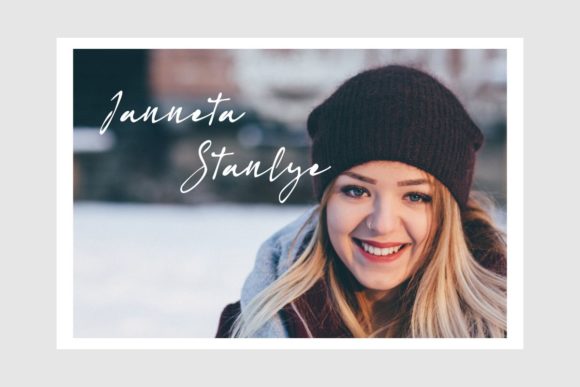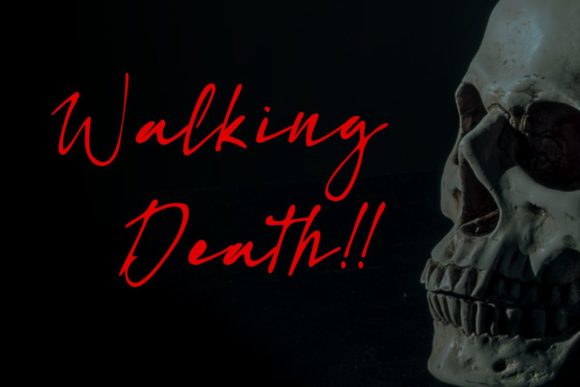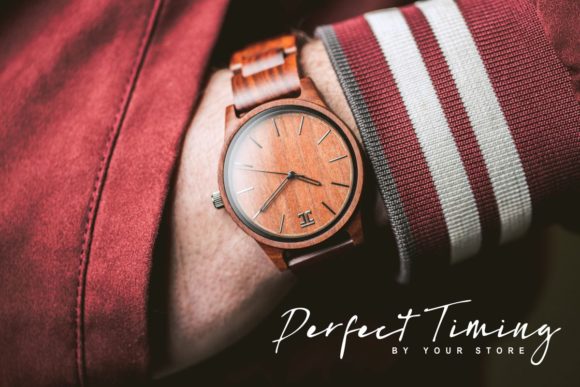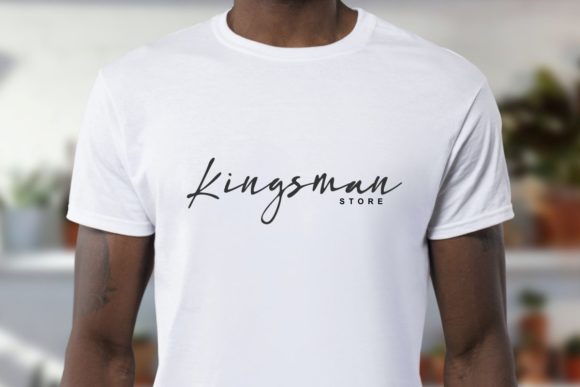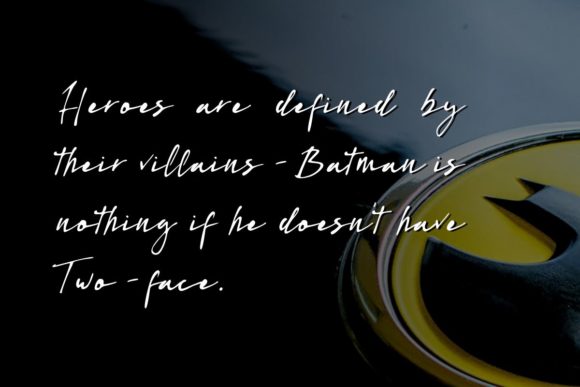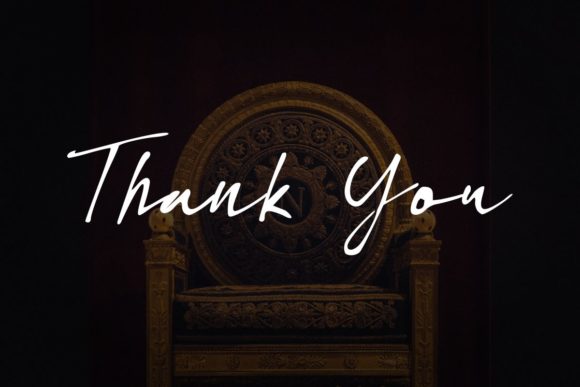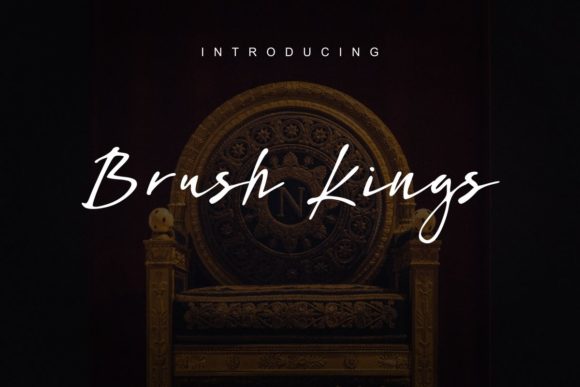
Introducing Brush Kings Font: The Ultimate Natural Script Font for Creative Designs
Are you a designer or crafter looking for a unique and creative way to add a personal touch to your designs? Look no further than Brush Kings Font, a natural script font that’s perfect for a wide range of applications. In this article, we’ll explore the features and benefits of Brush Kings Font, and show you how it can elevate your designs to the next level.
What is Brush Kings Font?
Brush Kings Font is a natural script font that’s designed to bring a touch of elegance and sophistication to your designs. With its fluid, hand-drawn strokes and unique character set, Brush Kings Font is perfect for creating logos, quotes, posters, and other designs that require a personal and creative touch.
Key Features of Brush Kings Font
- Natural and Organic Look: Brush Kings Font has a natural, hand-drawn look that’s perfect for creating designs that require a personal touch.
- Unique Character Set: With a unique character set that includes uppercase and lowercase letters, numbers, and punctuation marks, Brush Kings Font offers a wide range of creative possibilities.
- Perfect for Logos and Branding: Brush Kings Font is perfect for creating logos, business cards, and other branding materials that require a professional and elegant look.
- Playful and Versatile: Brush Kings Font is also perfect for creating playful and creative designs, such as posters, flyers, and social media graphics.
Benefits of Using Brush Kings Font
So why choose Brush Kings Font for your designs? Here are just a few benefits of using this amazing font:
- Adds a Personal Touch: Brush Kings Font adds a personal and creative touch to your designs, setting them apart from the competition.
- Easy to Read: Despite its creative and playful look, Brush Kings Font is easy to read and understand, making it perfect for designs that require a clear message.
- Versatile: Brush Kings Font can be used for a wide range of applications, from logos and branding to posters and social media graphics.
- High-Quality: Brush Kings Font is a high-quality font that’s designed to deliver exceptional results, even at large sizes.
How to Use Brush Kings Font
Using Brush Kings Font is easy. Here are a few tips to get you started:
- Use it for Logos and Branding: Brush Kings Font is perfect for creating logos, business cards, and other branding materials that require a professional and elegant look.
- Add it to Your Posters and Flyers: Brush Kings Font is also perfect for creating posters, flyers, and social media graphics that require a creative and playful touch.
- Experiment with Different Colors and Textures: Brush Kings Font looks great in a wide range of colors and textures, so don’t be afraid to experiment and find the perfect combination for your design.
Tips and Tricks for Working with Brush Kings Font
Here are a few tips and tricks to help you get the most out of Brush Kings Font:
- Use it with Other Fonts: Brush Kings Font looks great when paired with other fonts, so don’t be afraid to experiment and find the perfect combination for your design.
- Adjust the Size and Style: Brush Kings Font can be adjusted to suit a wide range of applications, so don’t be afraid to experiment with different sizes and styles.
- Add Effects and Textures: Brush Kings Font looks great with effects and textures, so don’t be afraid to add a creative touch to your design.
Brush Kings Font is a natural script font that’s perfect for designers and crafters who want to add a unique and creative touch to their designs. With its fluid, hand-drawn strokes and unique character set, Brush Kings Font offers a wide range of creative possibilities. Whether you’re creating logos, posters, or social media graphics, Brush Kings Font is the perfect choice. So why wait? Download Brush Kings Font today and start creating amazing designs!